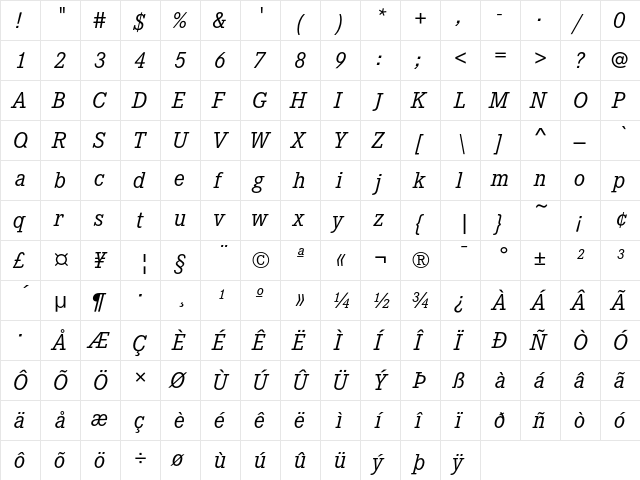
CorporateE RegularItalic Font Preview
CorporateE RegularItalic
Design Context for CorporateE Typeface
CorporateE is a composed and adaptable typeface that performs quietly and consistently across a wide range of design contexts. The slanted form adds forward momentum and visual energy.
Pro Tip: Try CorporateE for annotation and caption copy alongside an upright companion — the contrast in angle creates a dynamic but ordered typographic system.